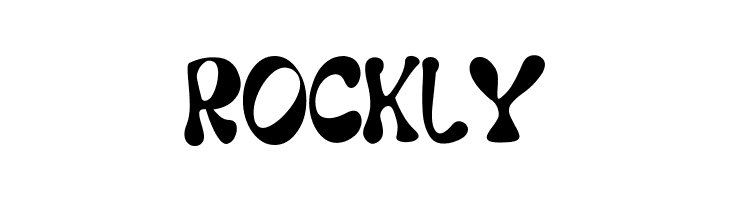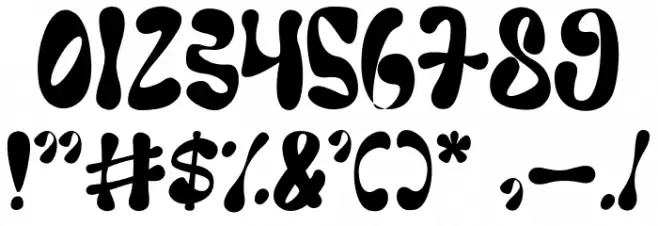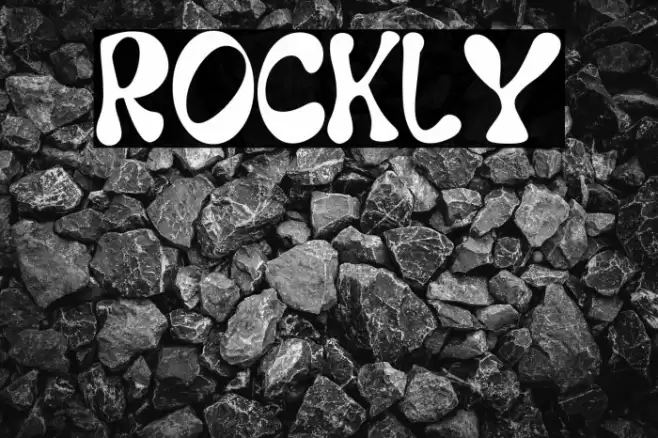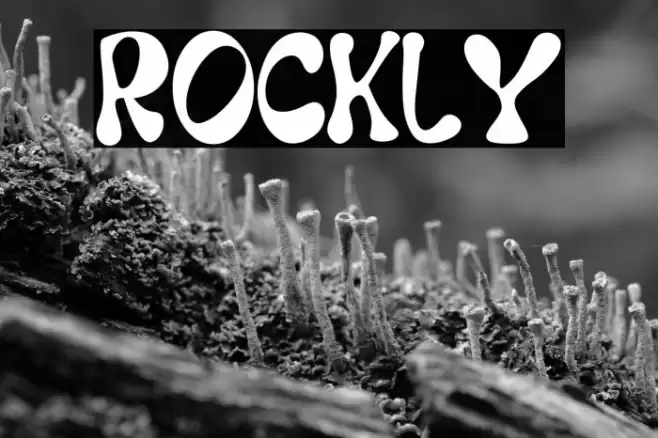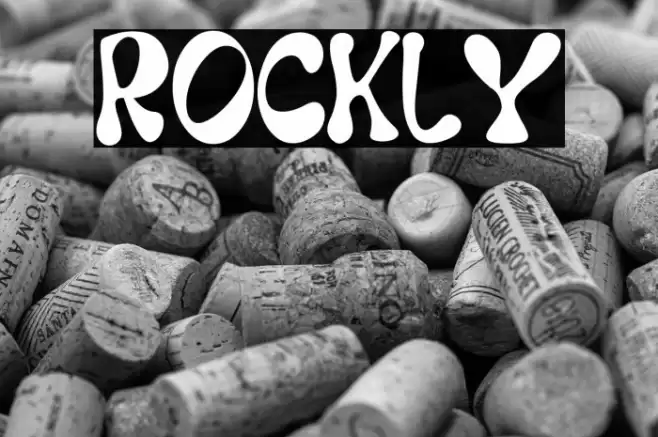
Rockly Font
| Stil general | Playful, Whimsical |
| Proiecte propuse | Ideal for children's books, playful branding, creative posters, and any design needing a fun, energetic vibe. |